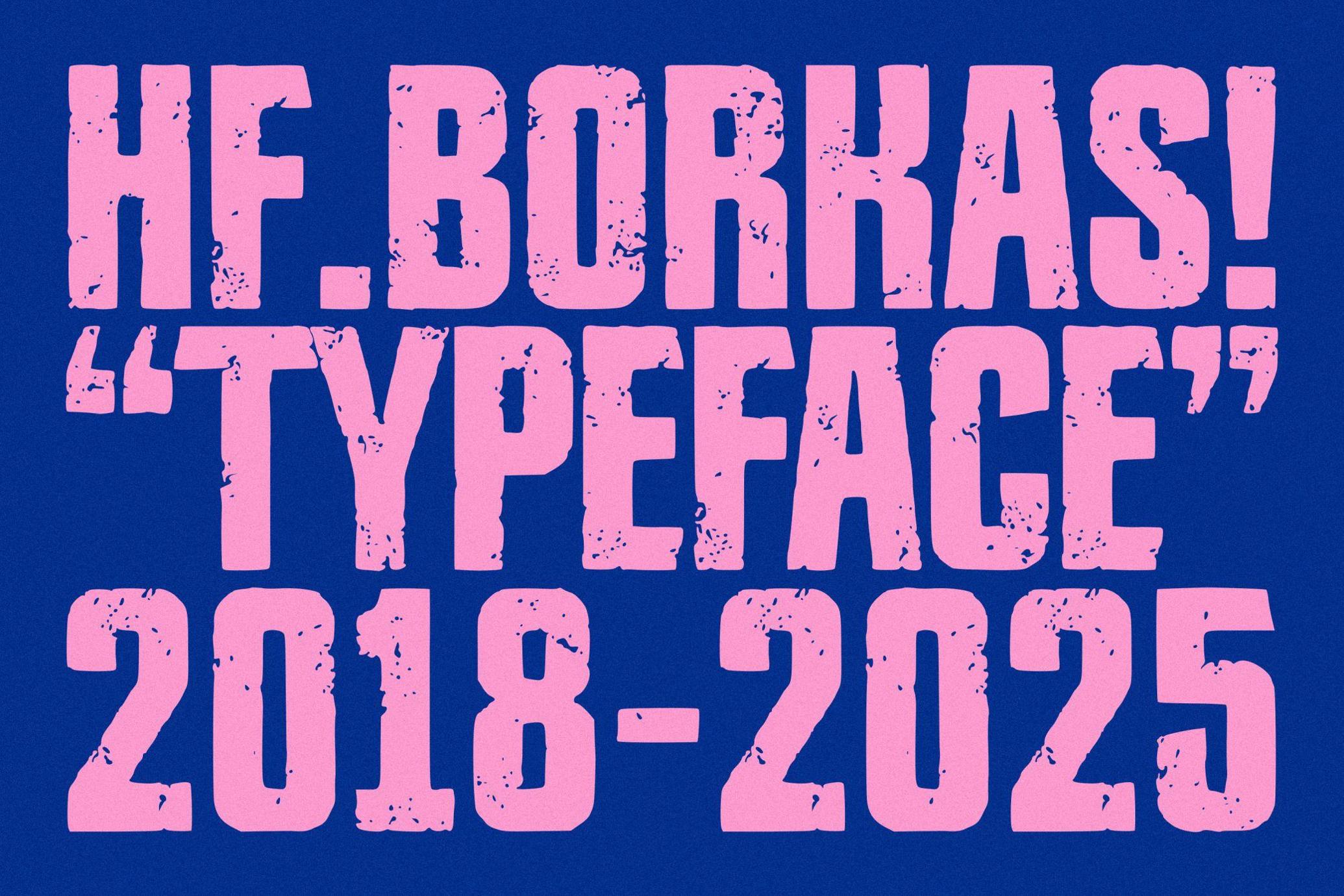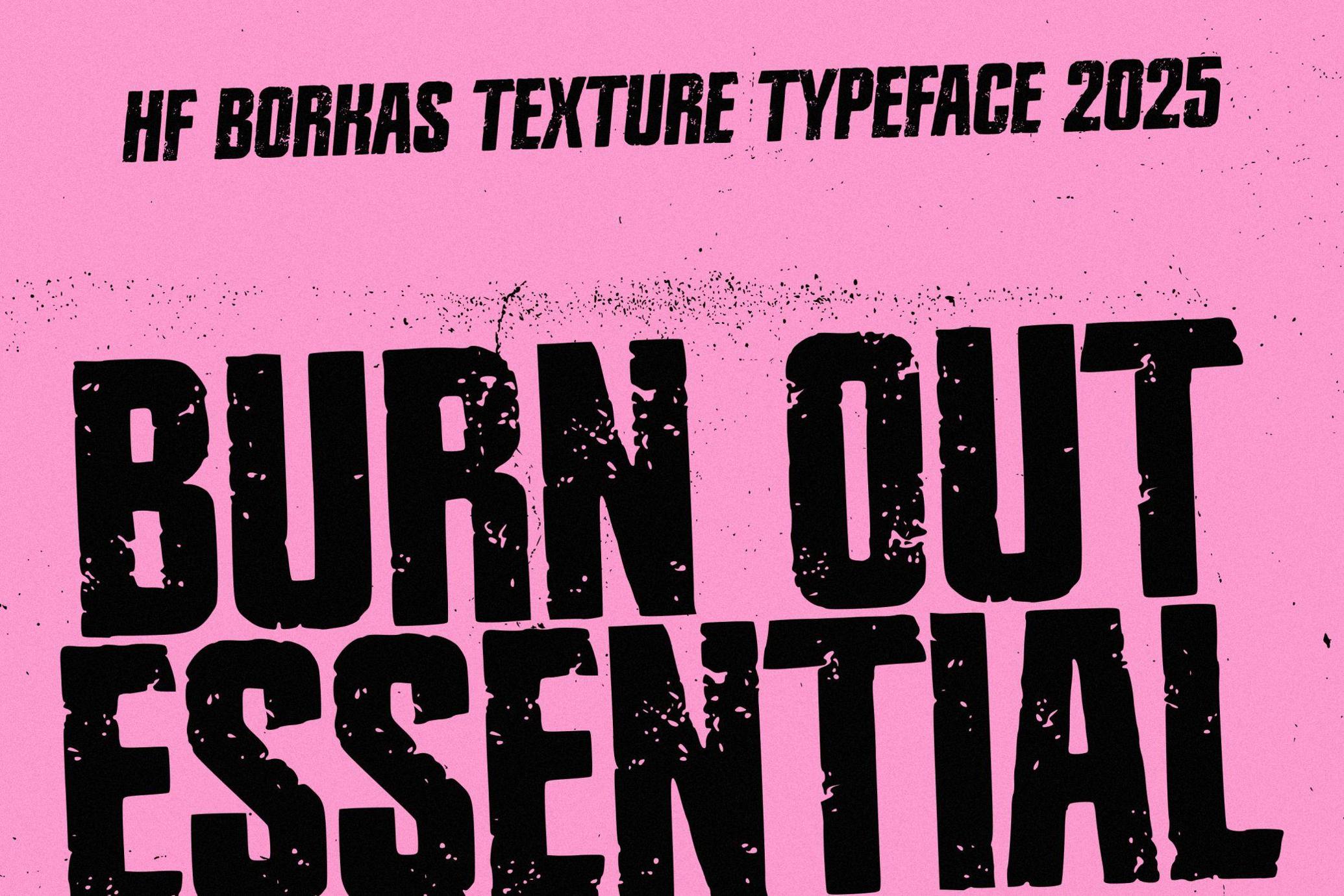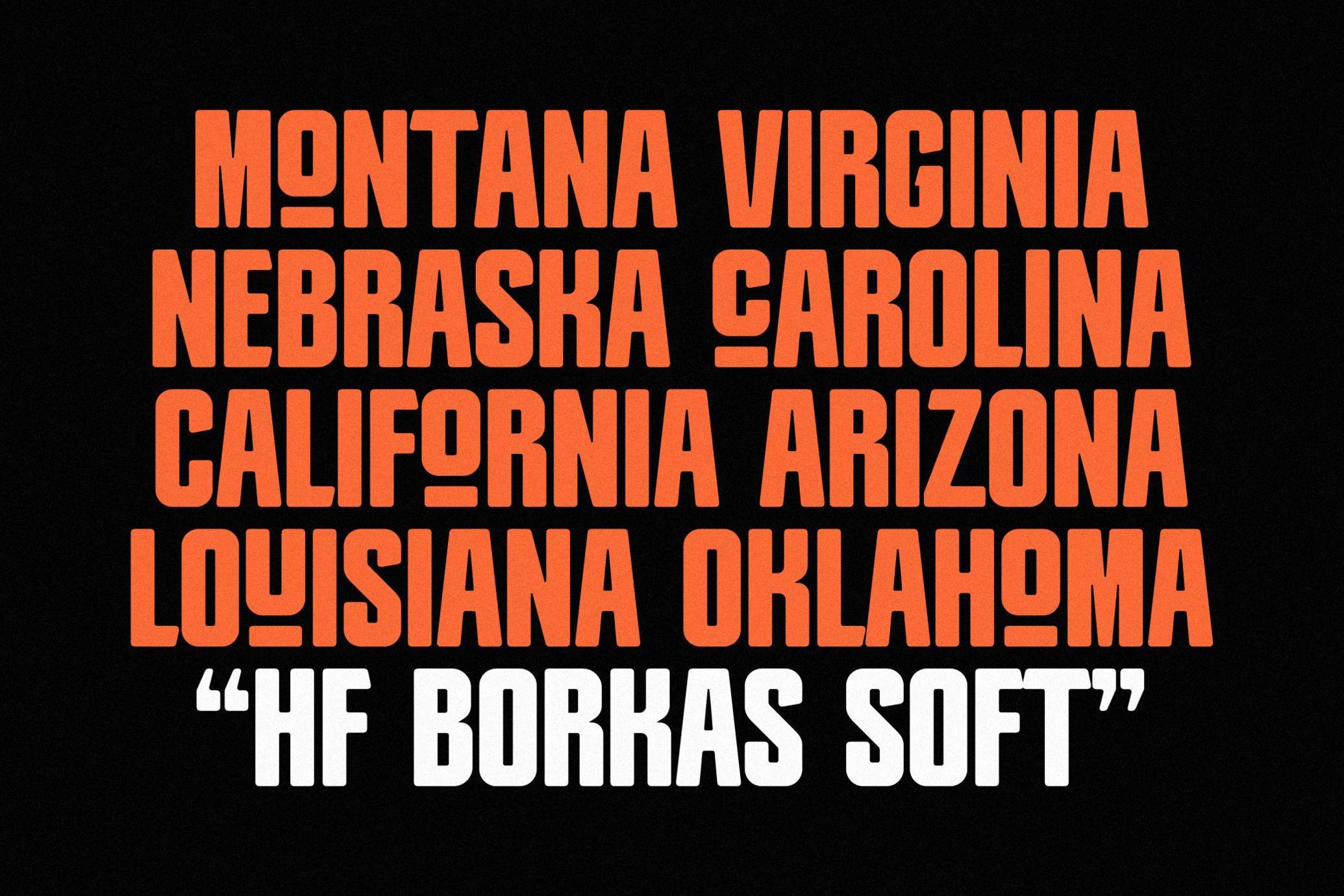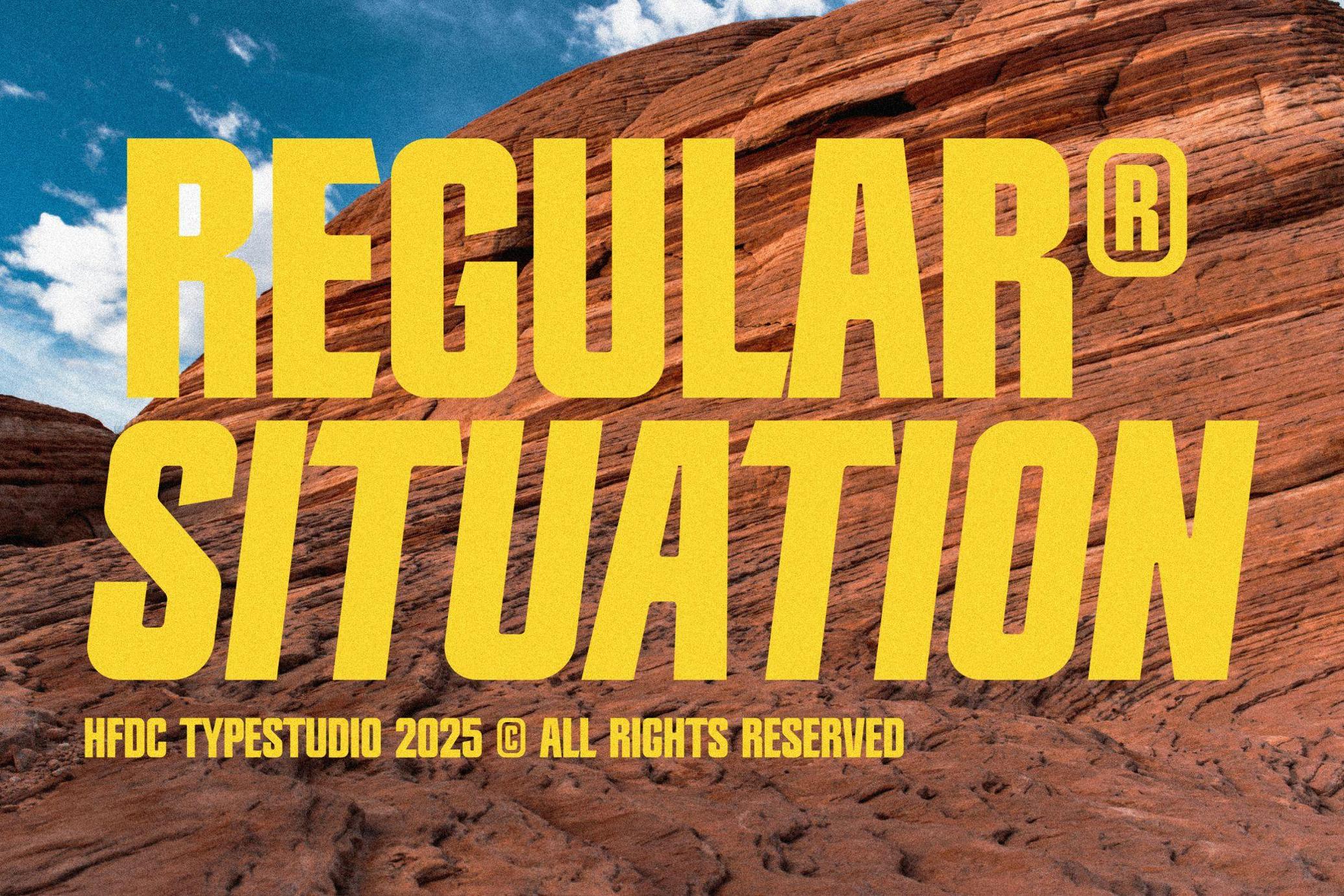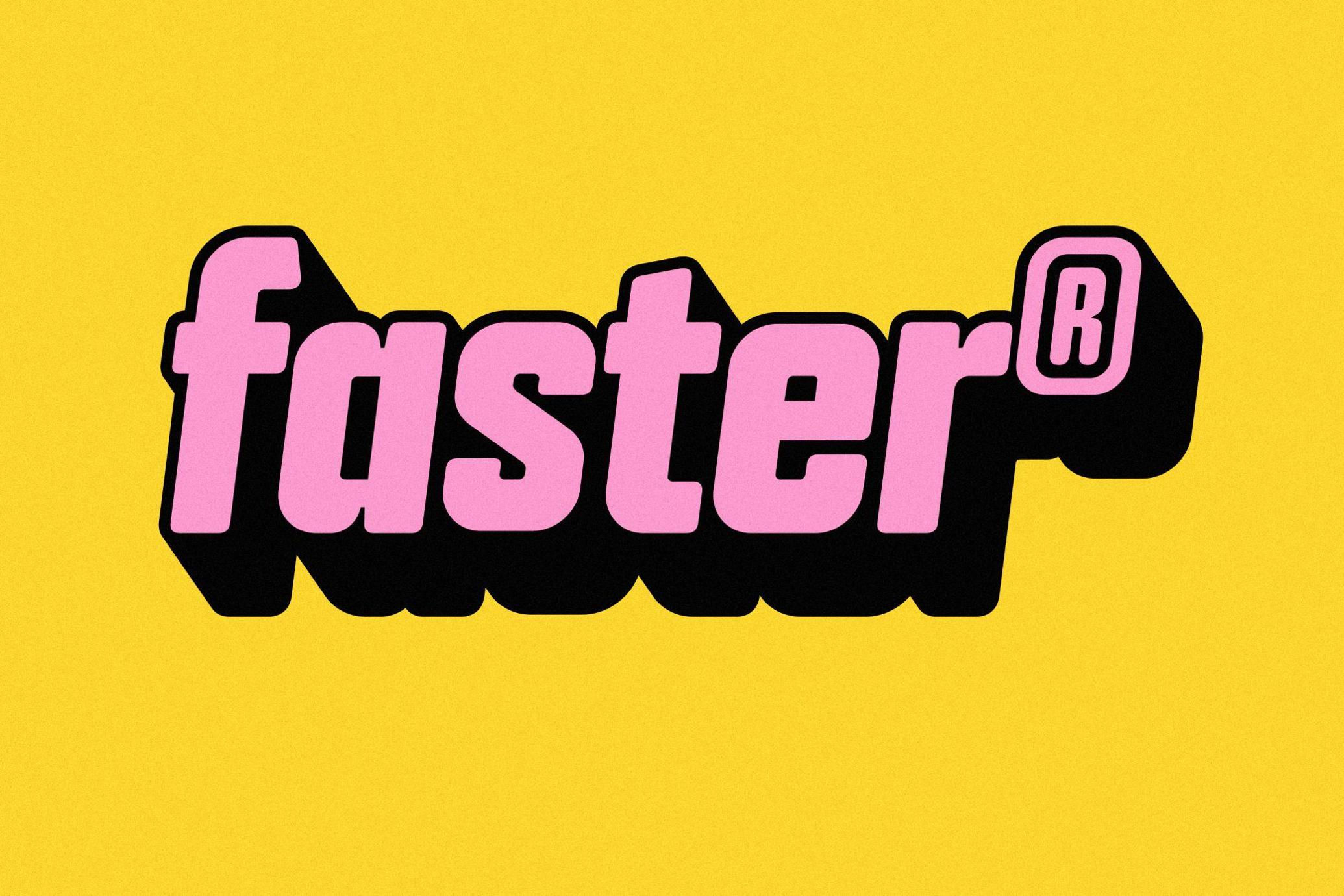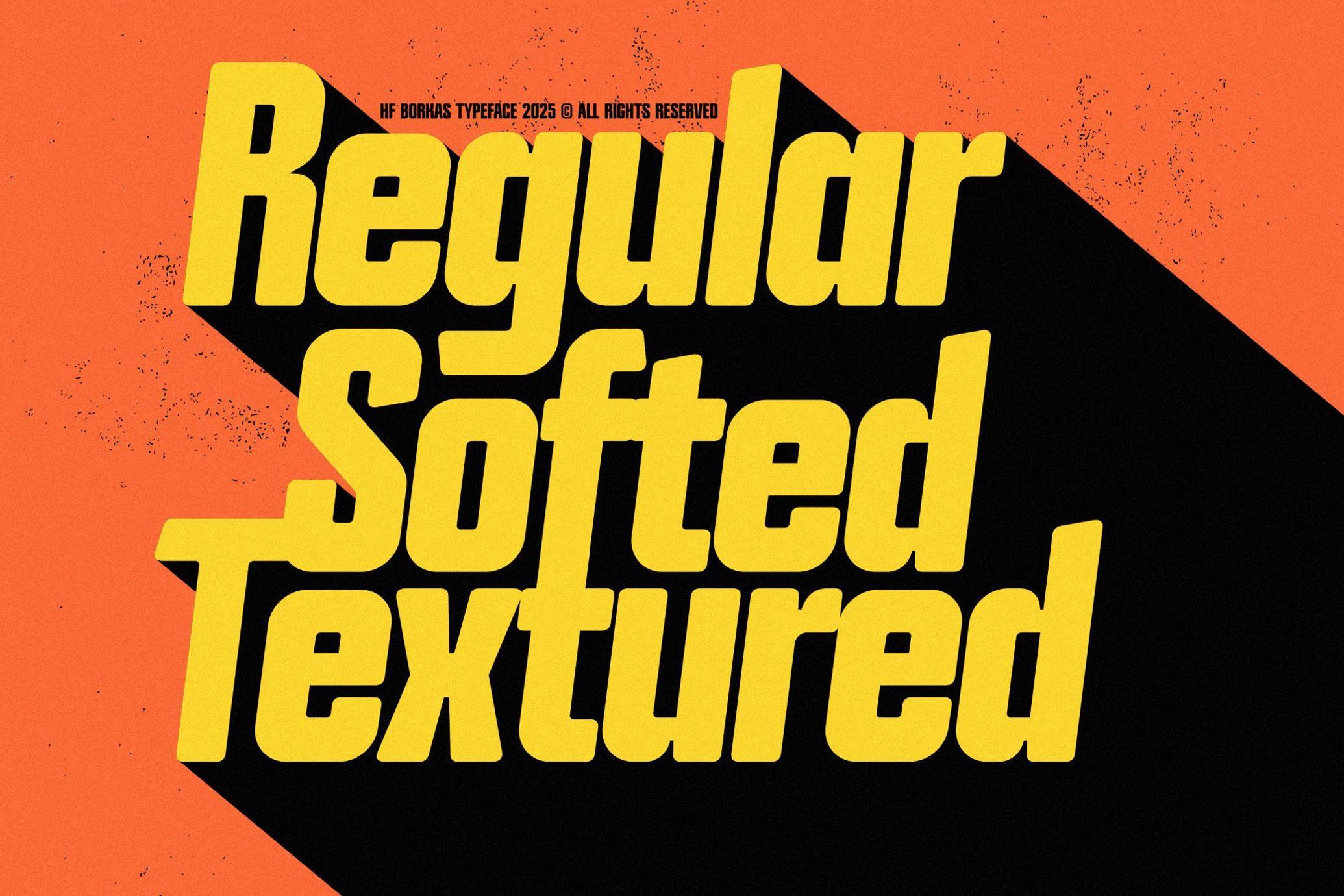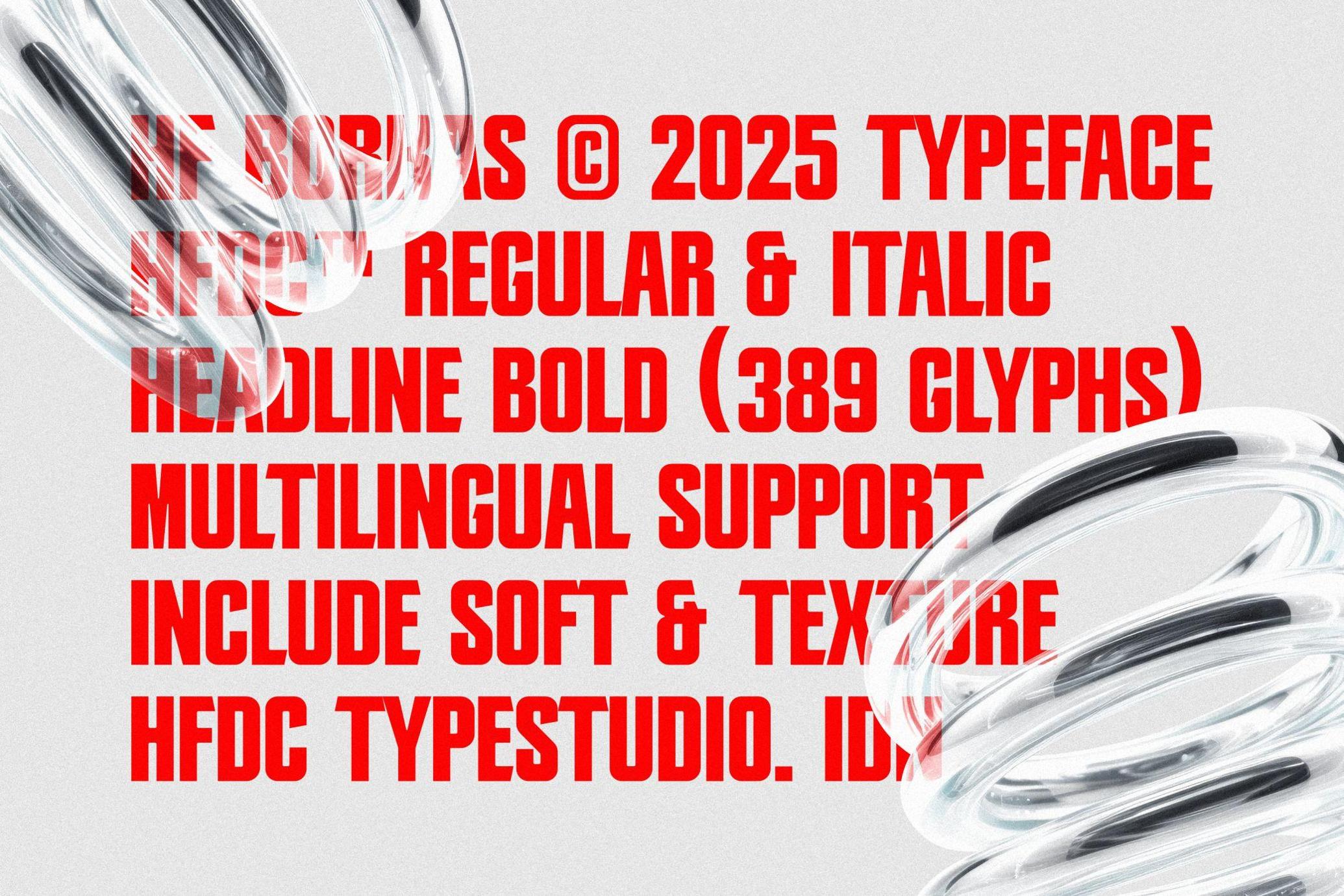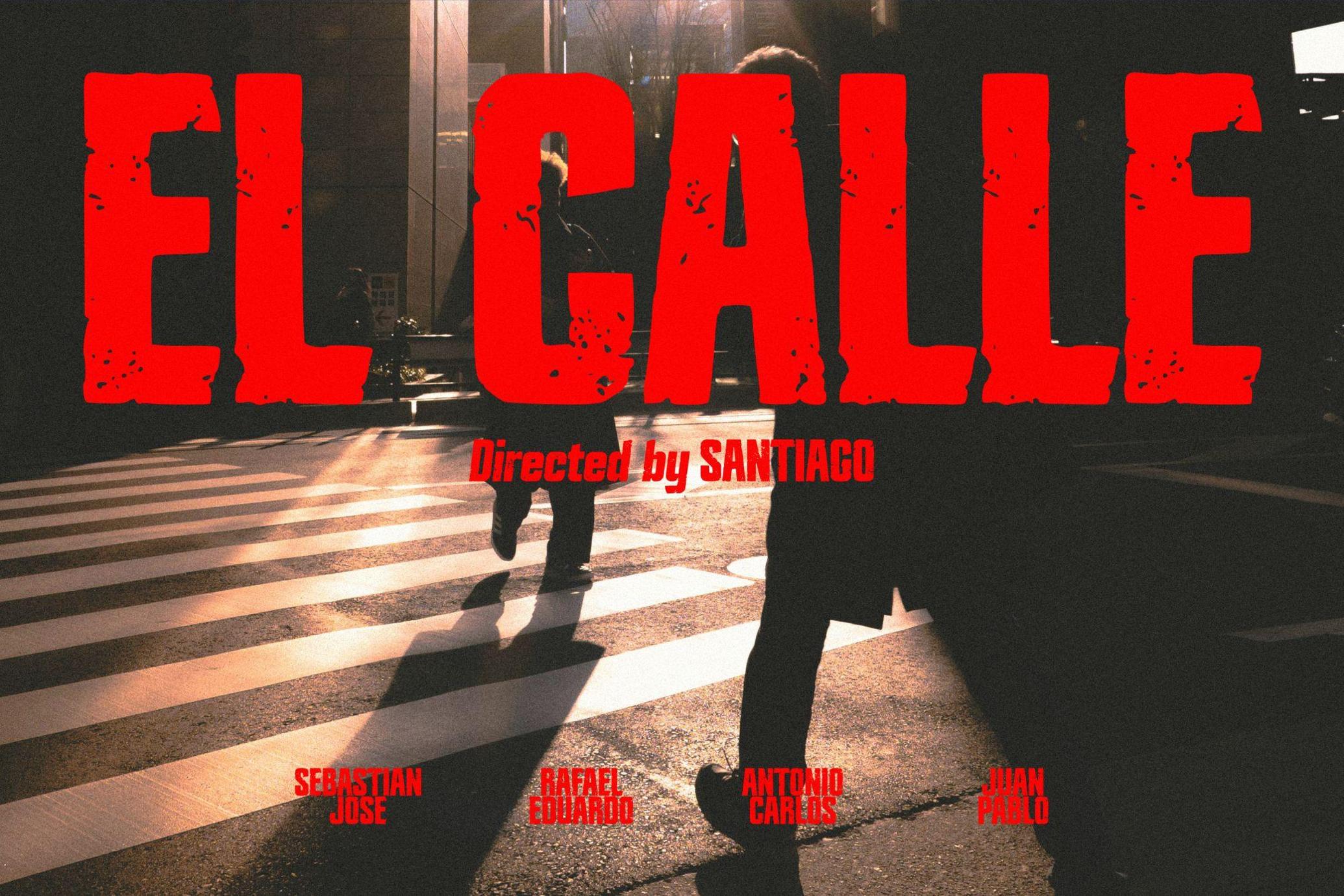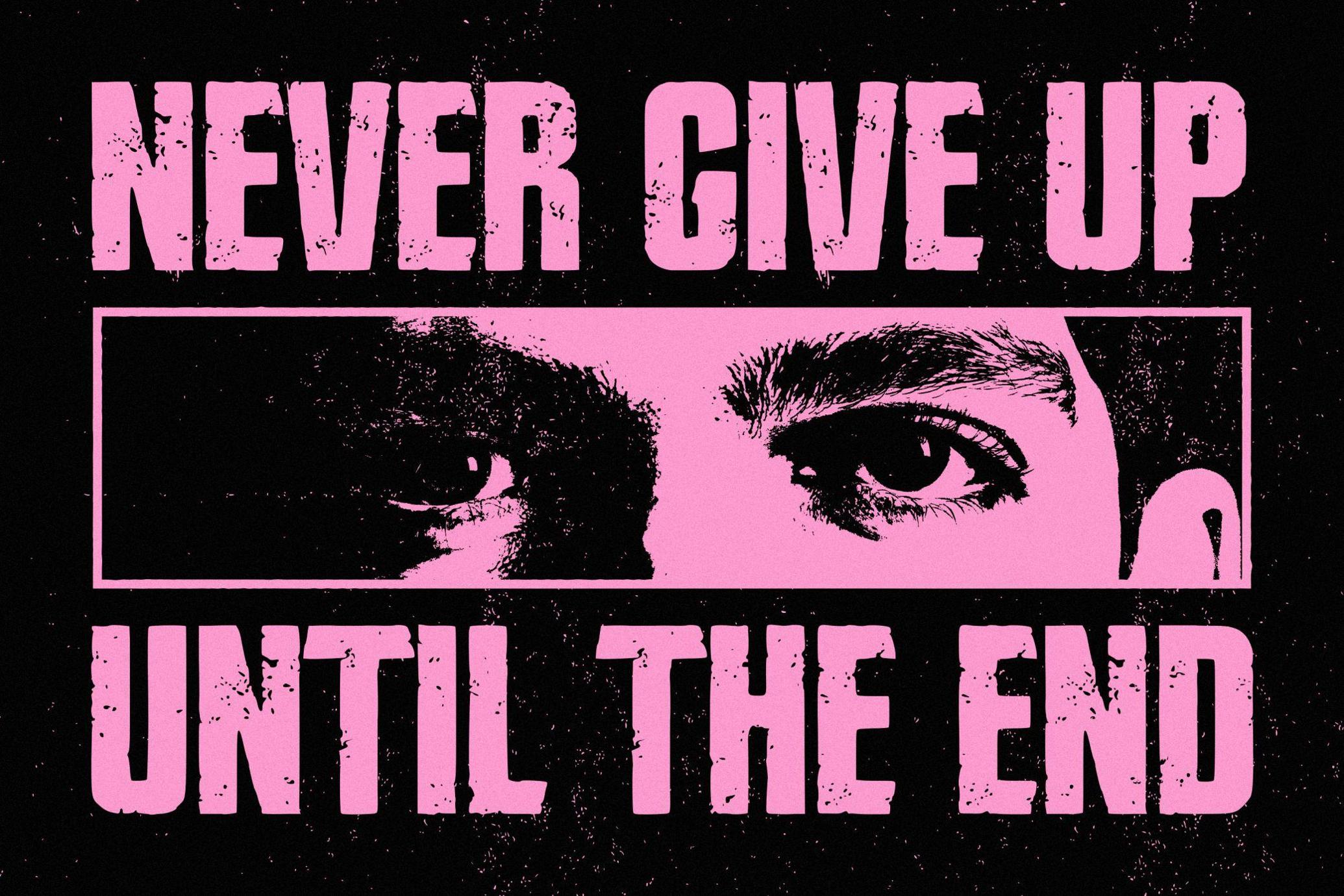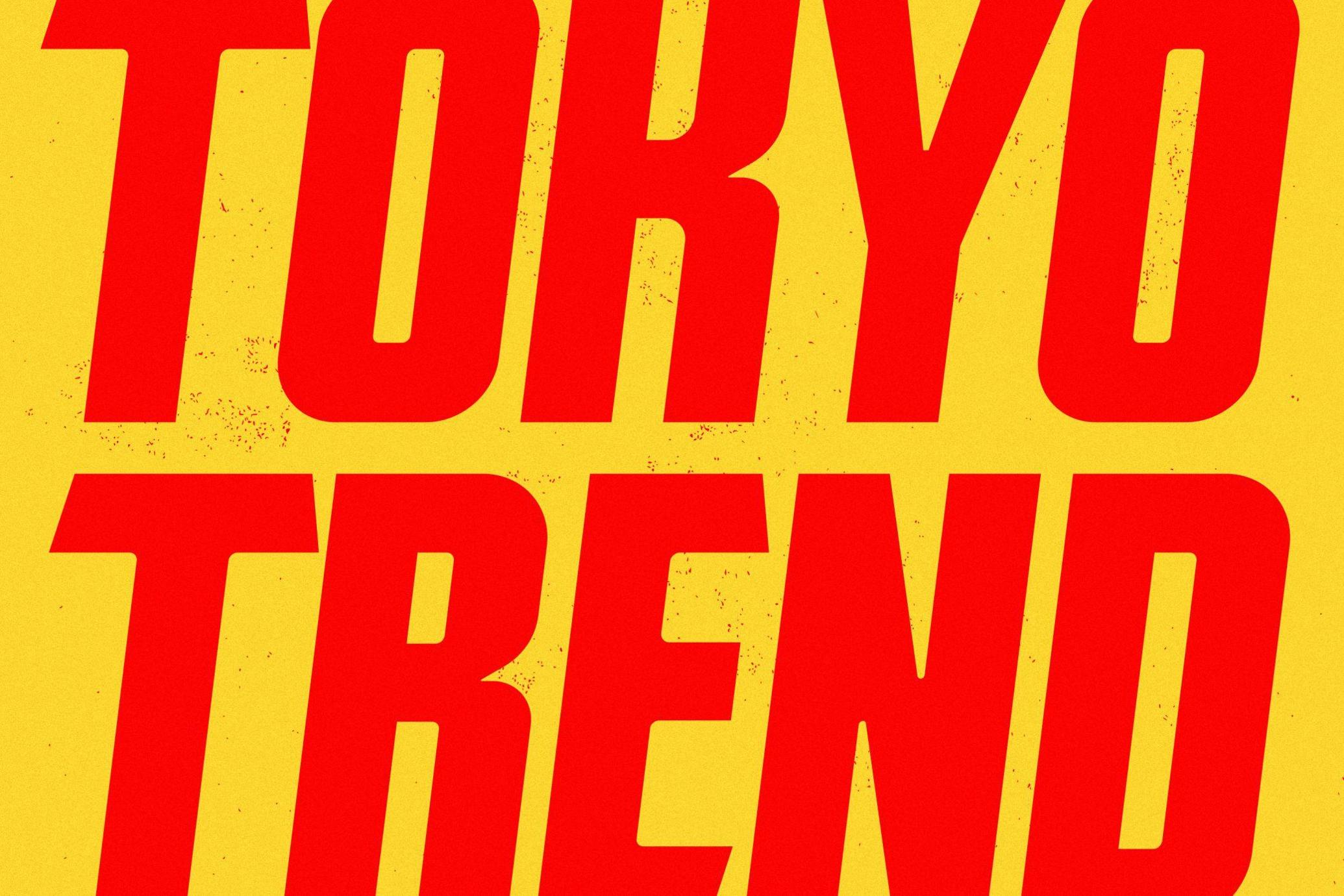
HF Borkas Sans Serif Font
HF Borkas – Bold. Impactful. Versatile.
HF Borkas is a powerful sans serif typeface designed to make a bold statement in any design. With its solid presence and commanding style, this type family is perfect for headlines, posters, logos, apparel, and branding that demands attention.
HF Borkas comes in three distinct styles to match a variety of creative moods :
Regular – Clean and assertive with sharp edges and modern geometry.
Soft – Features smoother terminals for a friendlier, more approachable look while retaining its strength.
Texture – A rugged, distressed version that adds character and vintage flair to your designs.